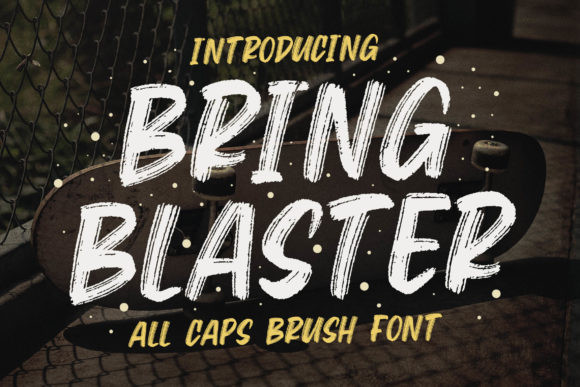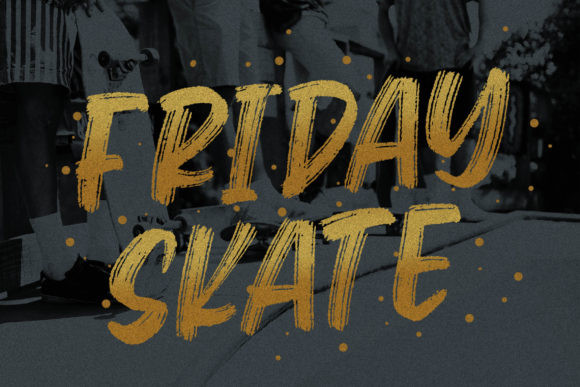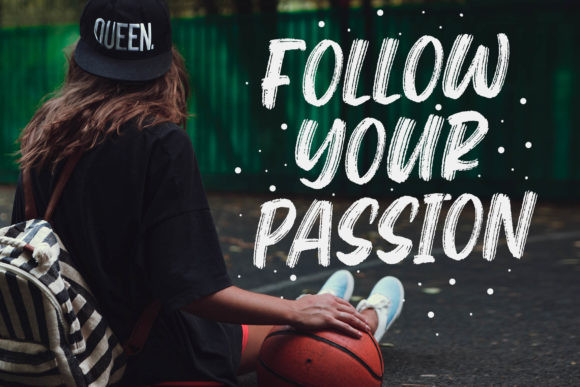
Bring Blaster Font
Bring Blaster is a casual, fun display font, created by using a brush pen. Clean and a little bit quirky, this font is the perfect fit for all of your logos, branding, social media, and crafty DIY projects.